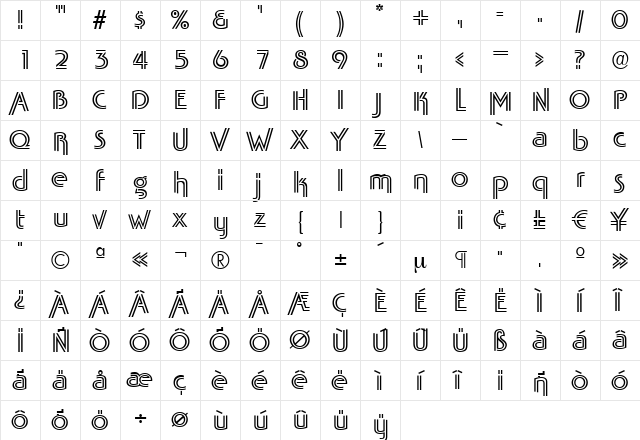
TabascoTwin Regular Font Preview
TabascoTwin Regular
Design Context for TabascoTwin Typeface
TabascoTwin is a composed and adaptable typeface that performs quietly and consistently across a wide range of design contexts.